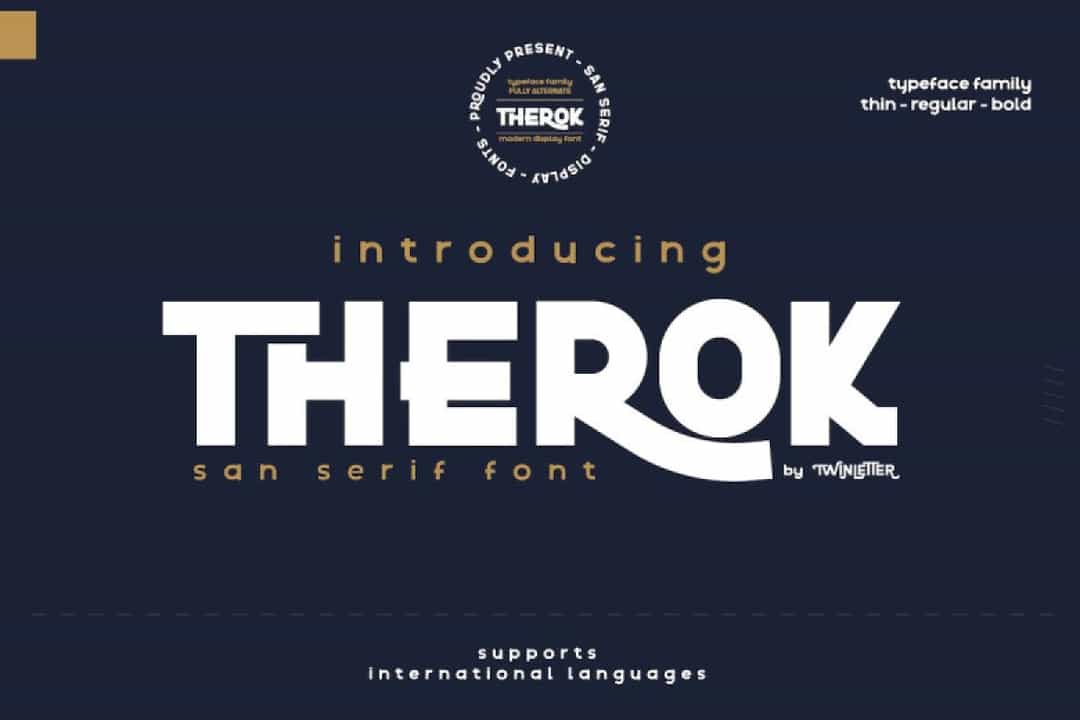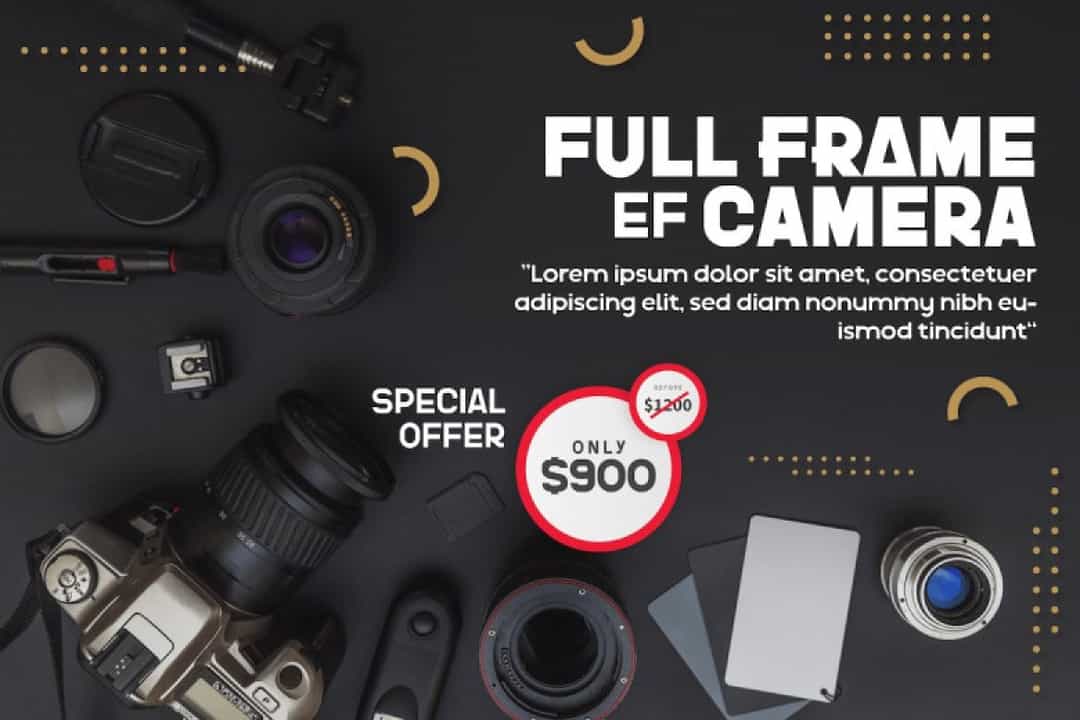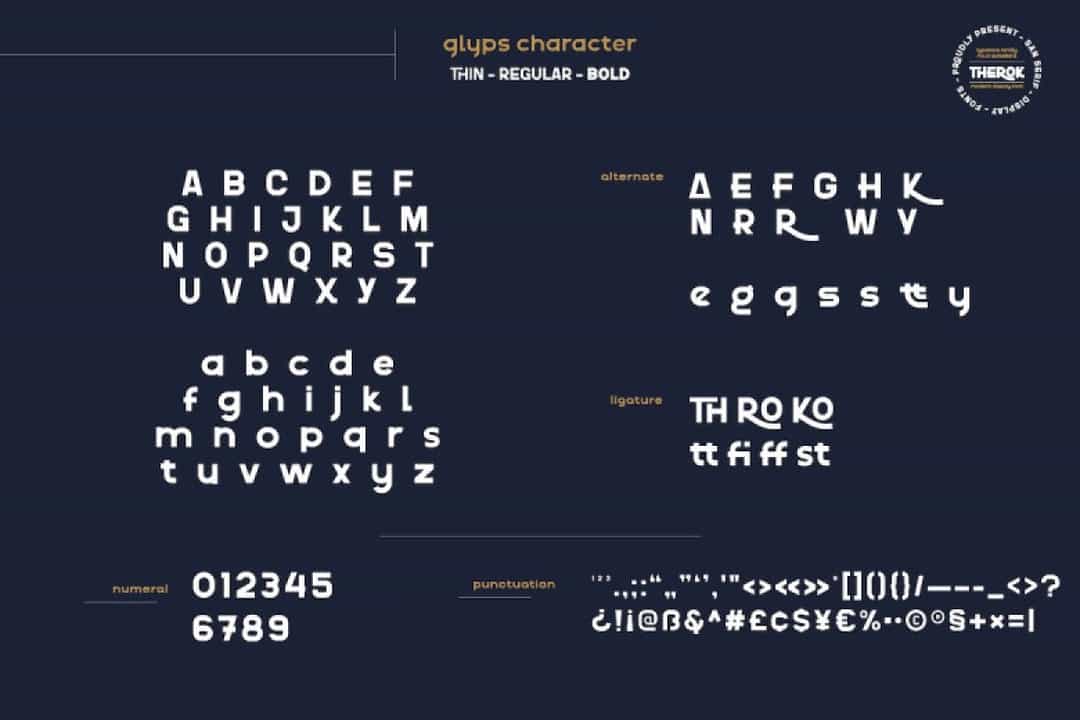
Discover Therok Font, part of the Sans Serif Display collection—a versatile and unique font perfect for adding a personal touch to your projects. Download it for free and enjoy crafting designs with style, from invitations to social media posts. This font is available exclusively for personal use, giving you the freedom to create without limits. Unlock your creativity with Therok Font today!
Therok Font is a family of San Serif fonts designed with meticulous attention paid to each letter arrangement to produce an elegant appearance and lasting impression for easy usage in formal or informal applications. Perfect for projects requiring lots of work.